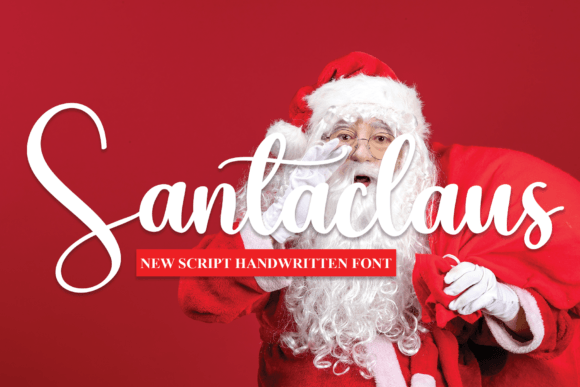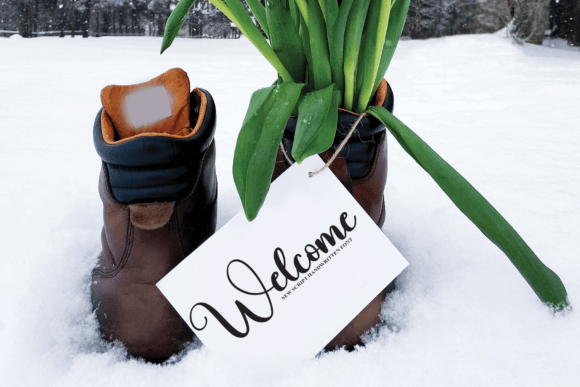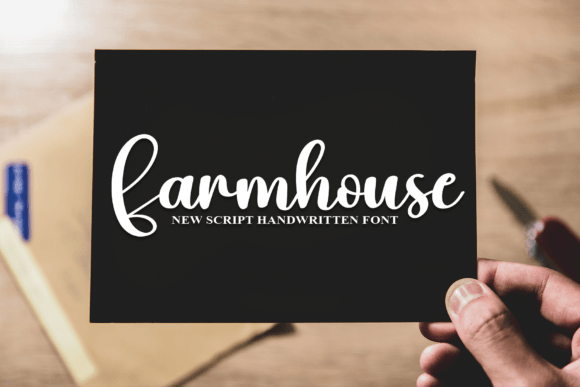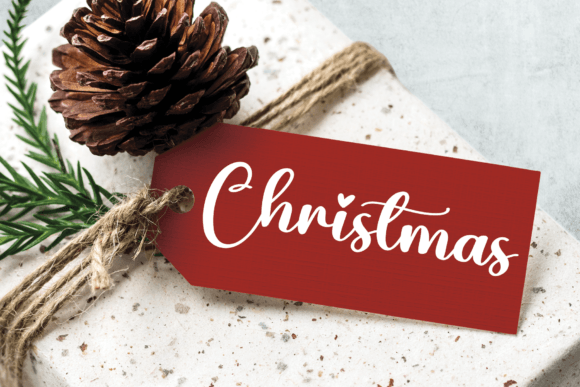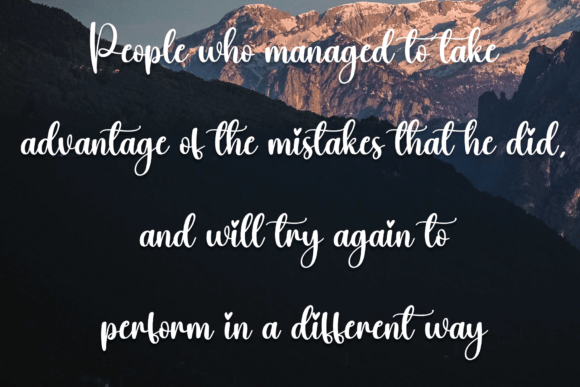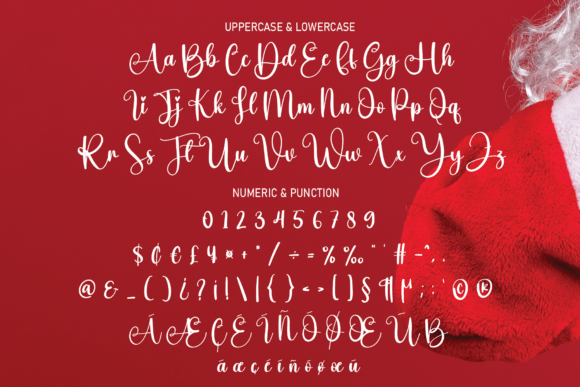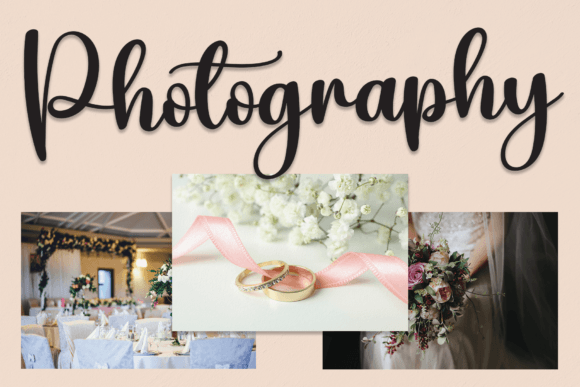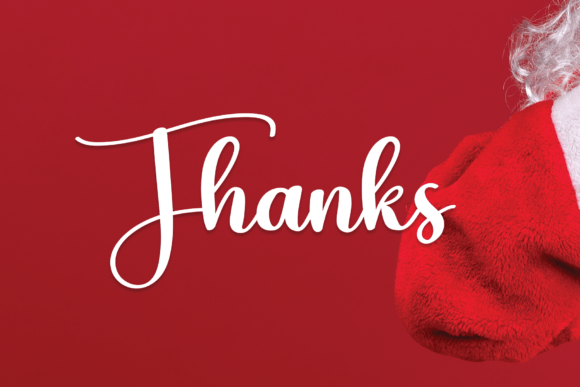
Santaclaus Font
About Santaclaus Font
“Santaclaus” is not just a font; it’s a dazzling script typeface that adds a touch of elegance and sophistication to your creative projects. Neatly crafted with highly detailed characters, “Santaclaus” stands out for its meticulous design. Regardless of the topic, this font is a wonderful asset to your font library, as it has the potential to enhance the visual appeal of any creation.
The term “dazzling” suggests that “Santaclaus” brings a sense of brilliance and glamour to your designs. This quality makes it suitable for a range of applications where you want to convey a luxurious and stylish aesthetic. Whether used in invitations, branding, or other creative projects, “Santaclaus” adds a touch of dazzle to the text.
The meticulous crafting and high level of detail in “Santaclaus” contribute to its overall visual impact. Each character is carefully designed to ensure clarity and precision, making the font suitable for projects that demand attention to detail and a polished appearance.
The versatility of “Santaclaus” is emphasized by its potential to enhance any creation. Whether you’re working on posters, logos, or any other design project, this font adapts seamlessly to various contexts, ensuring that it complements and elevates the overall design.
Adding “Santaclaus” to your font library implies that it becomes a valuable resource for enhancing the sophistication of your creative projects. Its potential to enhance any creation makes it a versatile choice for designers looking to infuse their work with a touch of elegance and visual appeal.
In summary, “Santaclaus” is more than just a font; it’s a design element that brings dazzling sophistication to your creative projects. Its meticulous craftsmanship, high level of detail, versatility, and potential to enhance any creation make it a valuable addition to your font library, promising visually striking and polished outcomes.